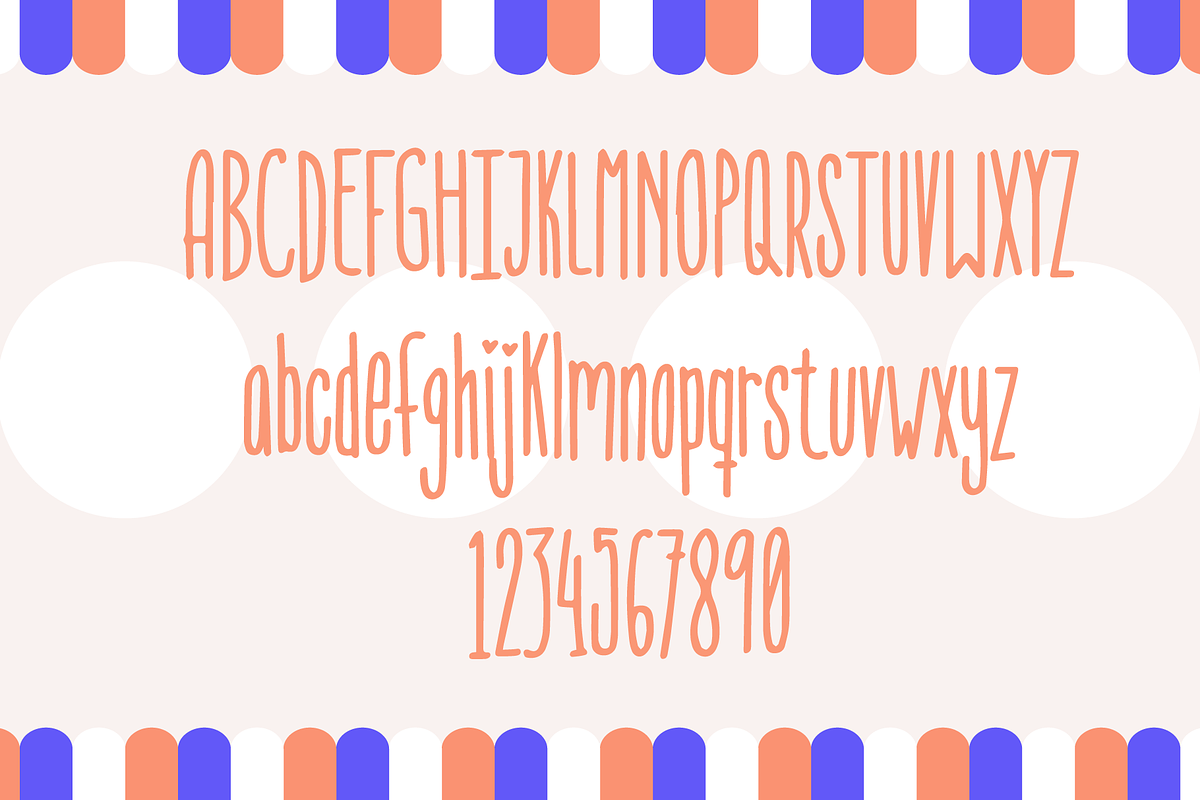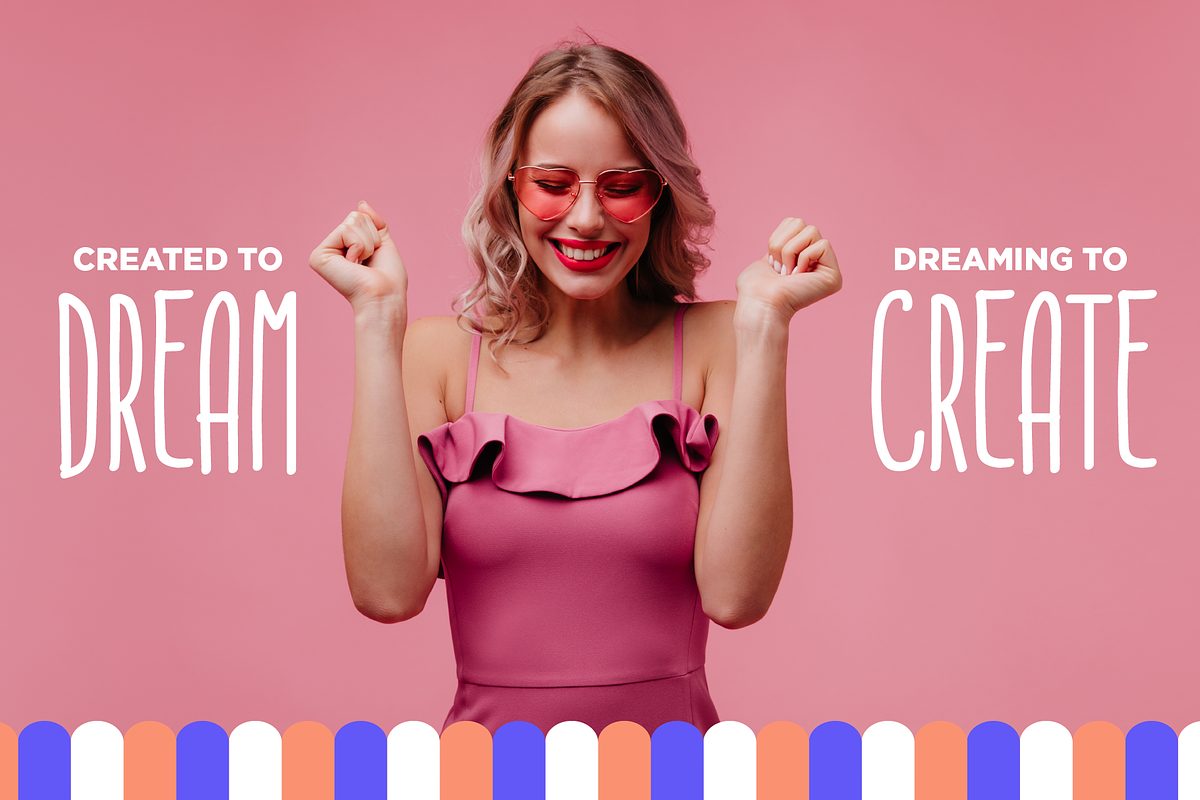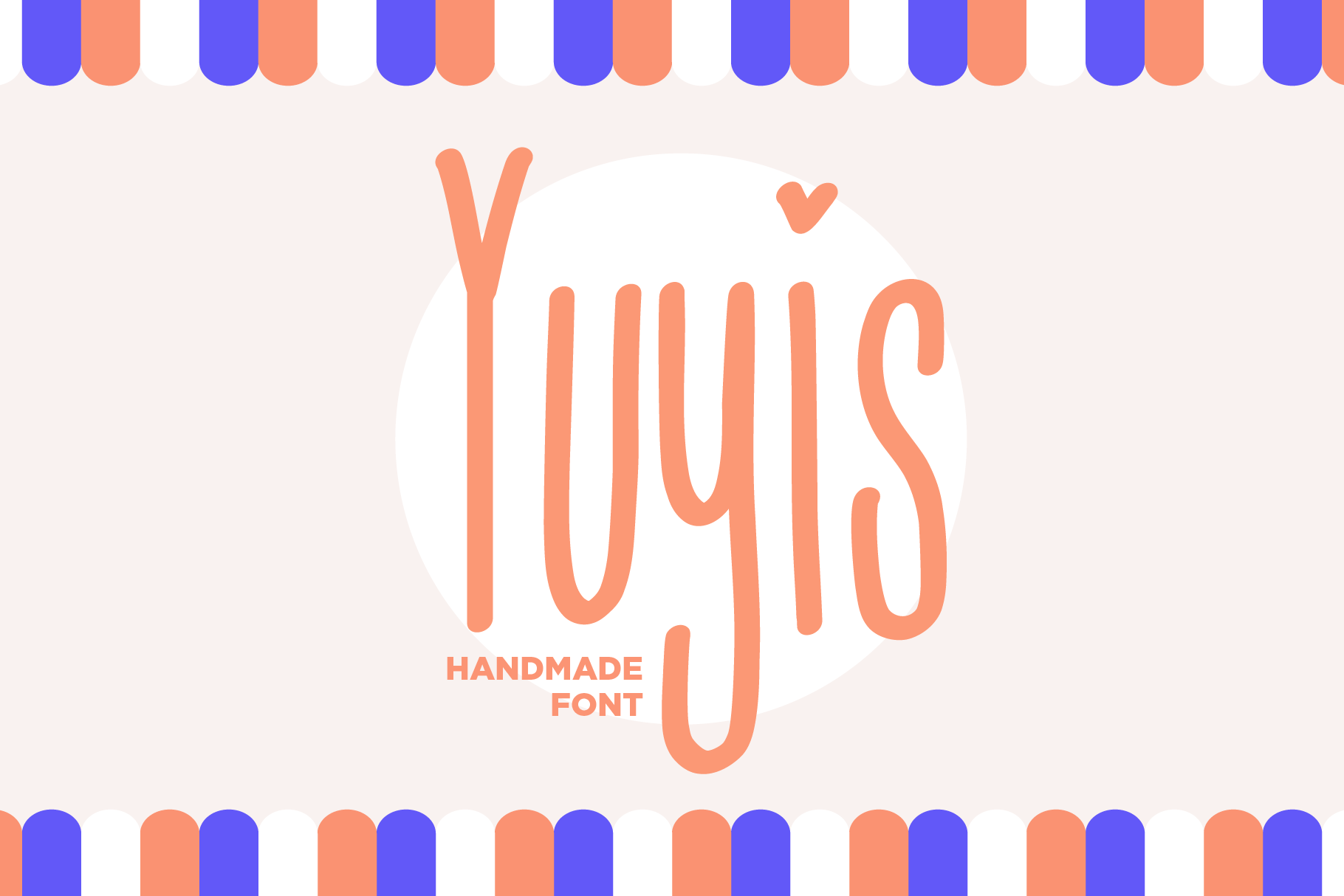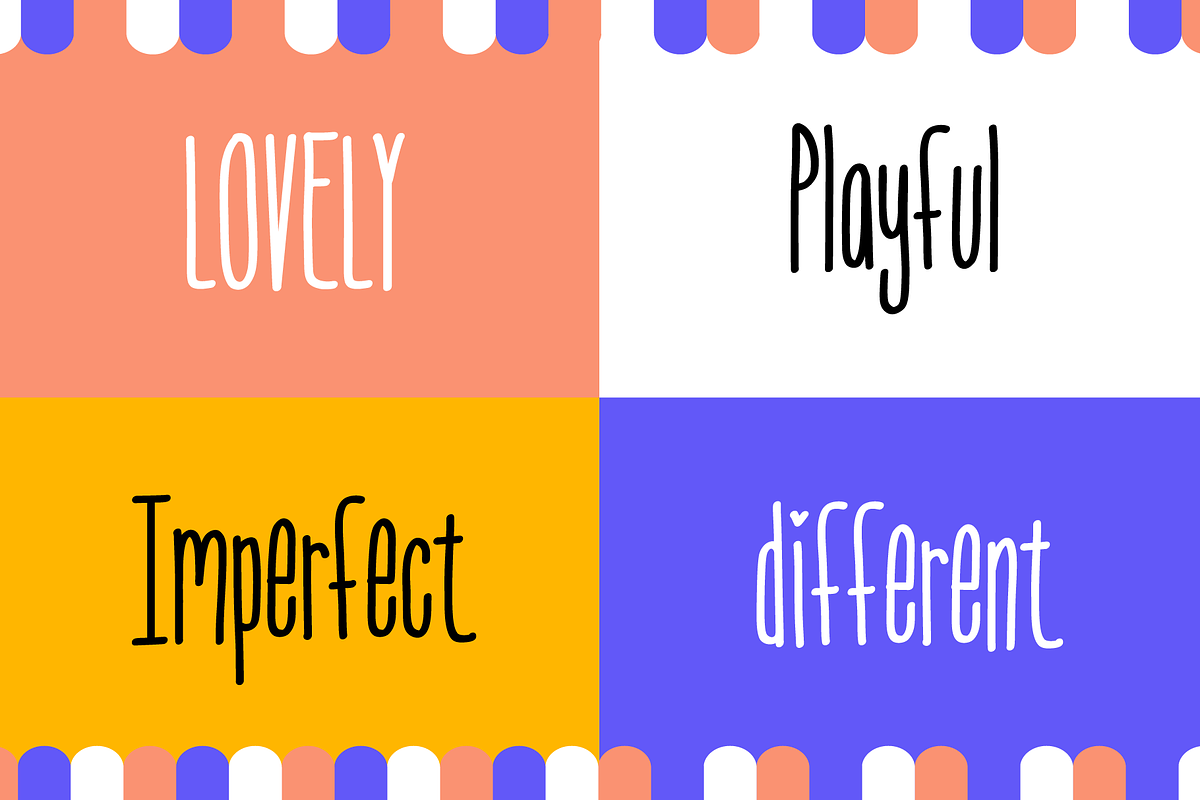
Yuyis - Handmade font
Yuyis is a fun handmade font. The letters are different legths making it look like it was made with sharpie and paper. Perfect for invitations, advertisement, kids books and more!
- Spanish accented characters and ñ